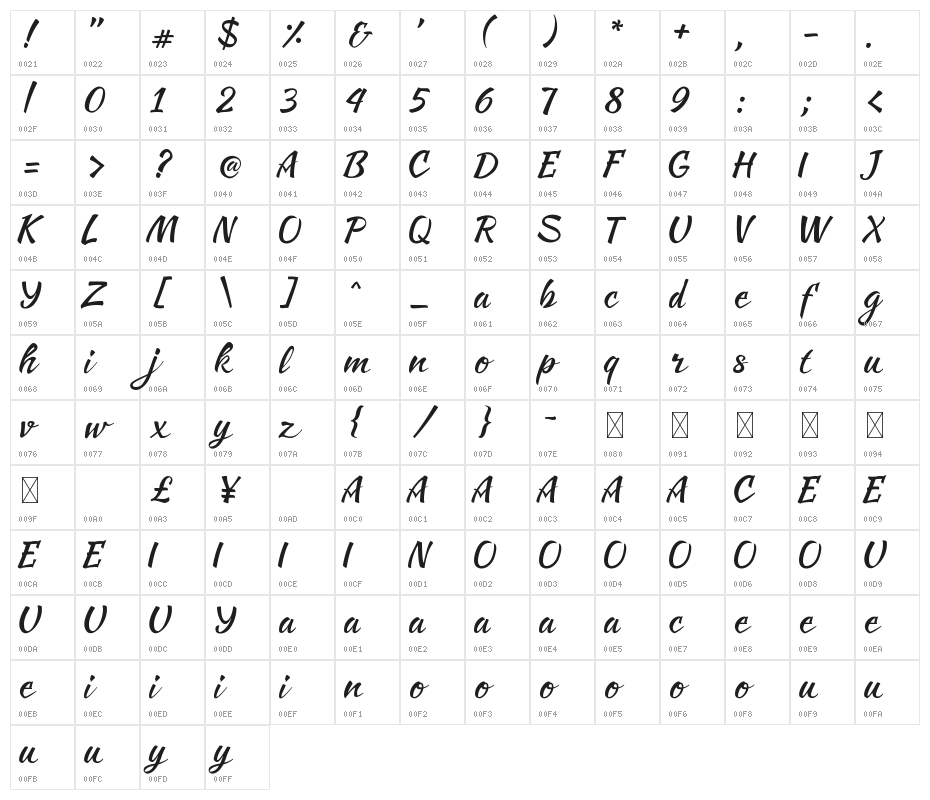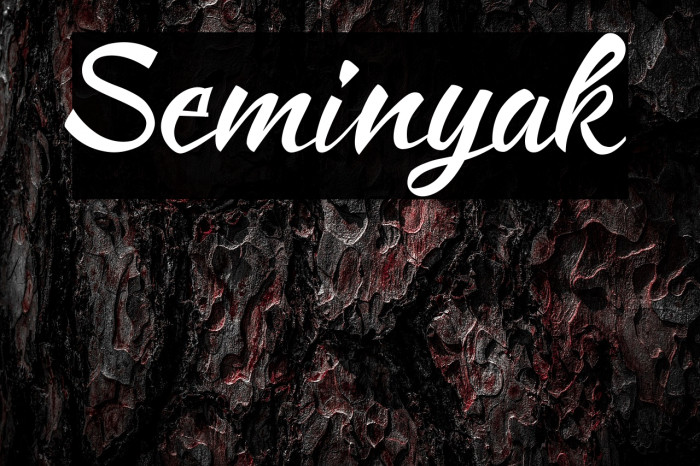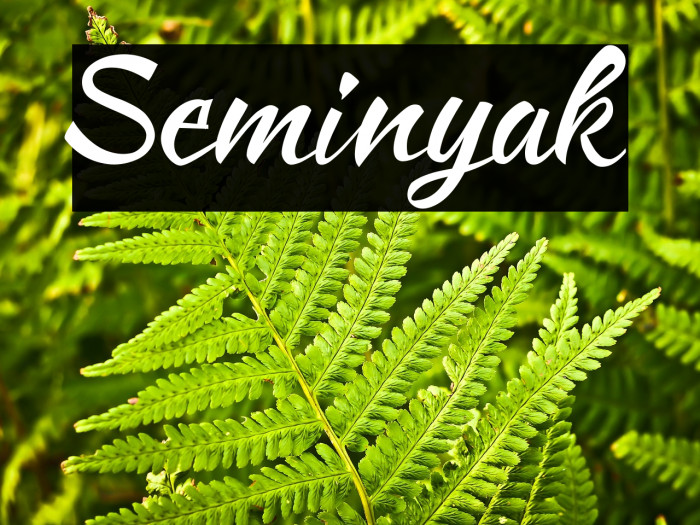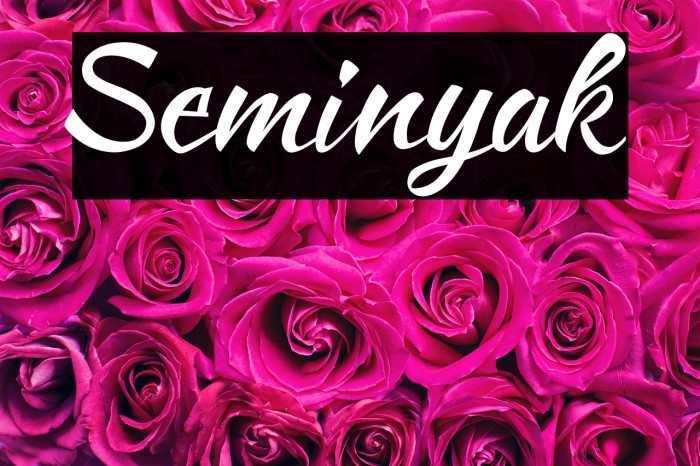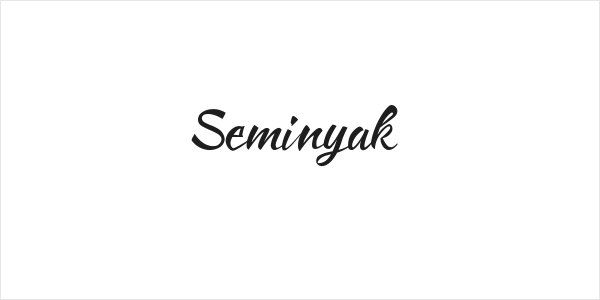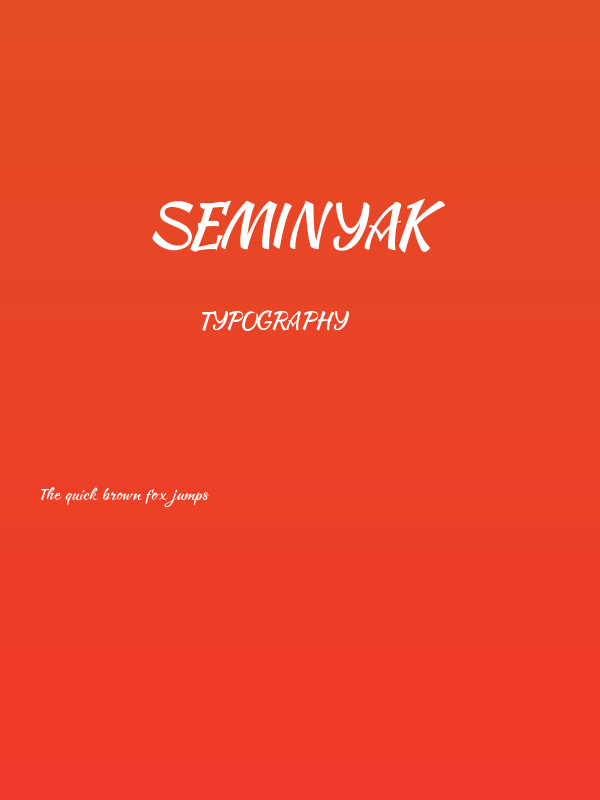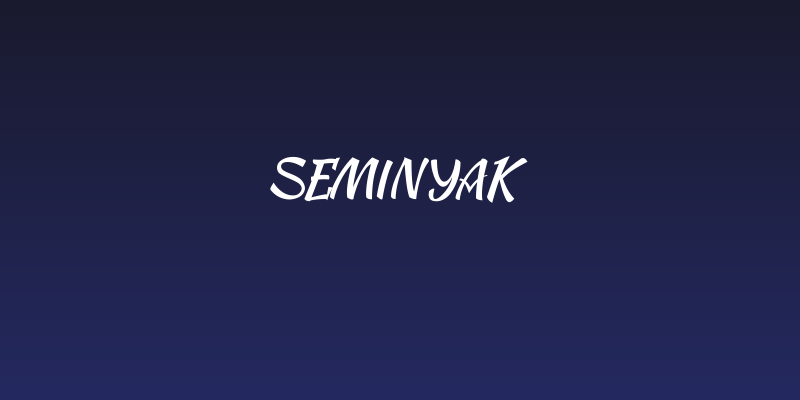
Seminyak Font
Seminyak Description
This font exudes a dynamic and elegant script style, characterized by its fluid and cursive letterforms. The uppercase letters are bold and sweeping, with a slight slant that adds a sense of motion and grace. The lowercase letters are equally fluid, with distinctive loops and curves that enhance its handwritten appeal. The numerals maintain the same flowing style, ensuring consistency throughout. Special characters are designed with the same attention to detail, making them blend seamlessly with the rest of the font. This font is perfect for projects that require a personal touch, such as invitations, greeting cards, or branding materials.
| Overall Style | Elegant, Handwritten |
| Proposed Projects | Ideal for invitations, greeting cards, branding materials, and any project needing a personal, elegant touch. |